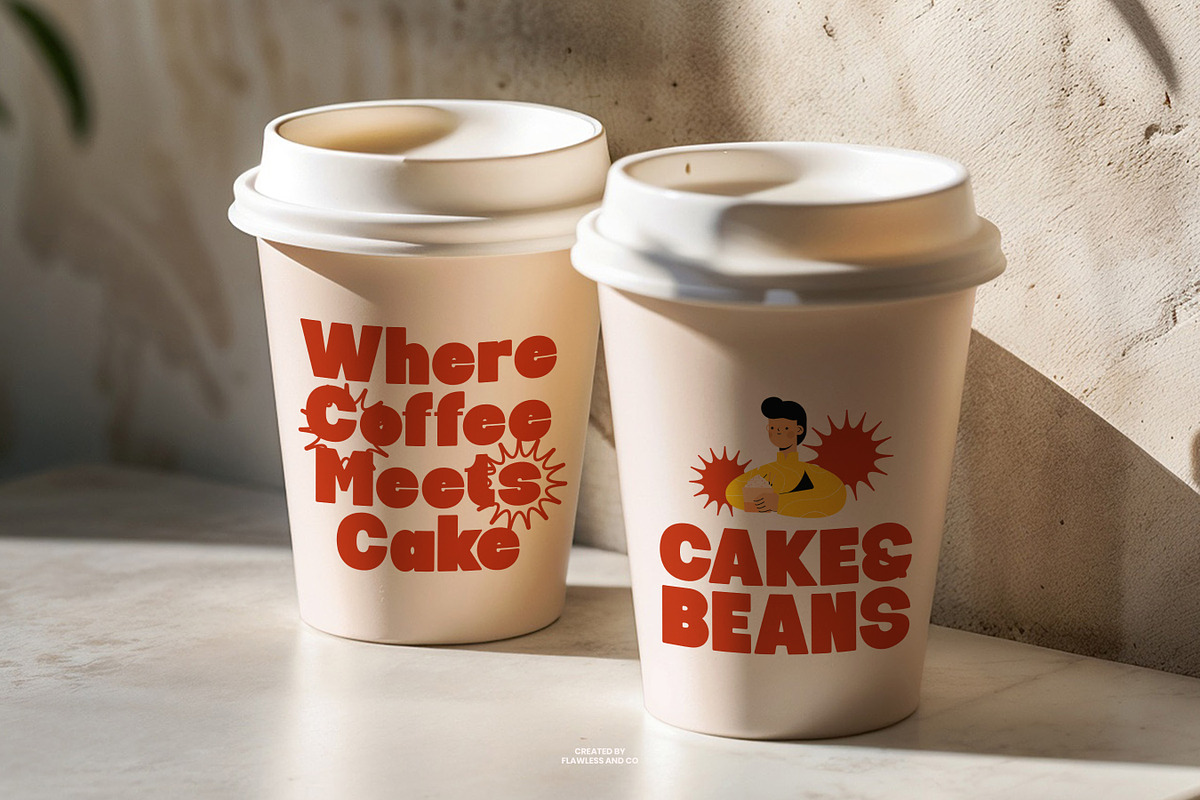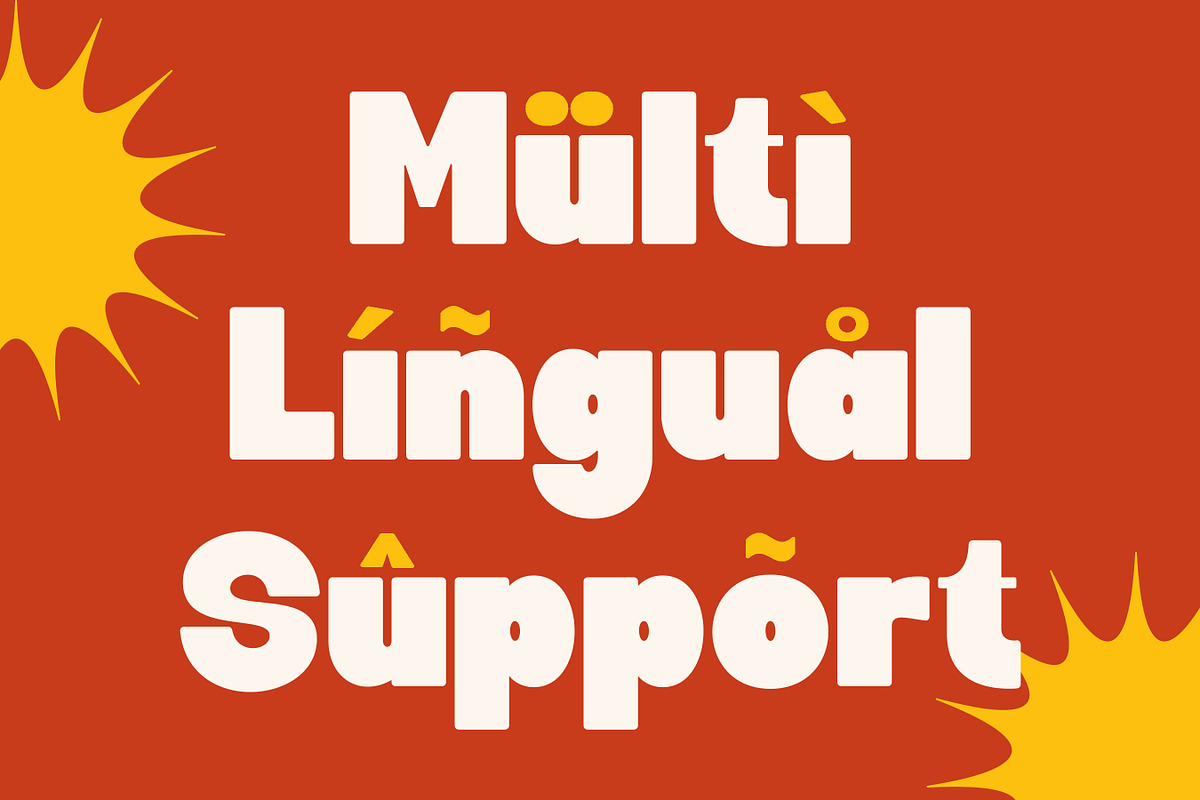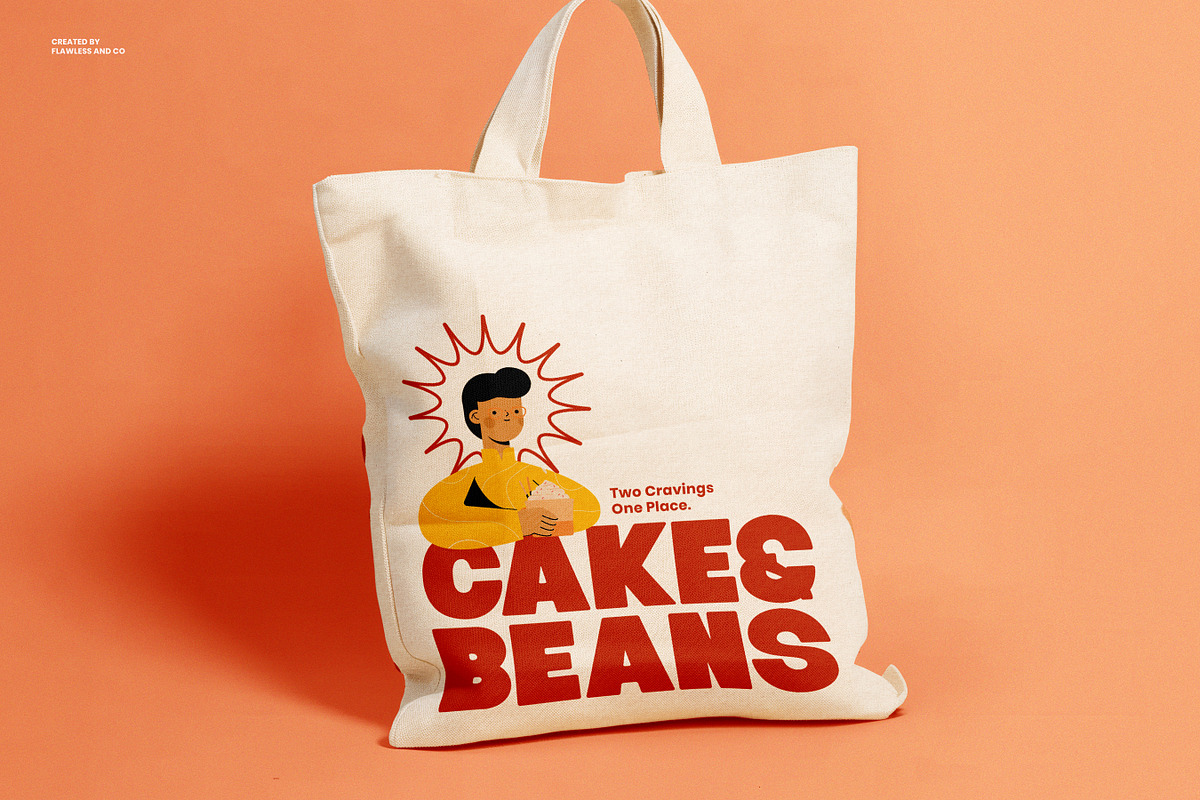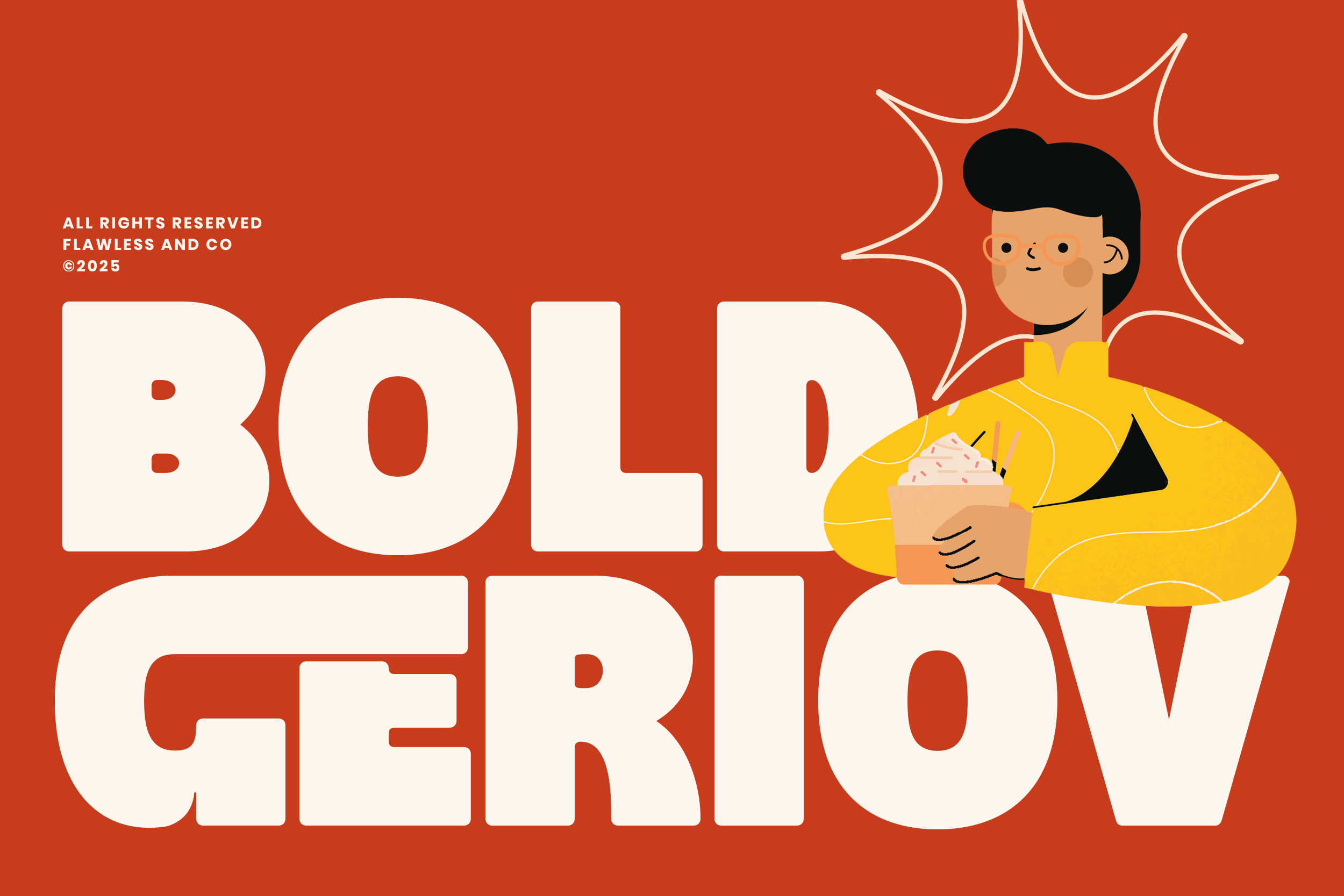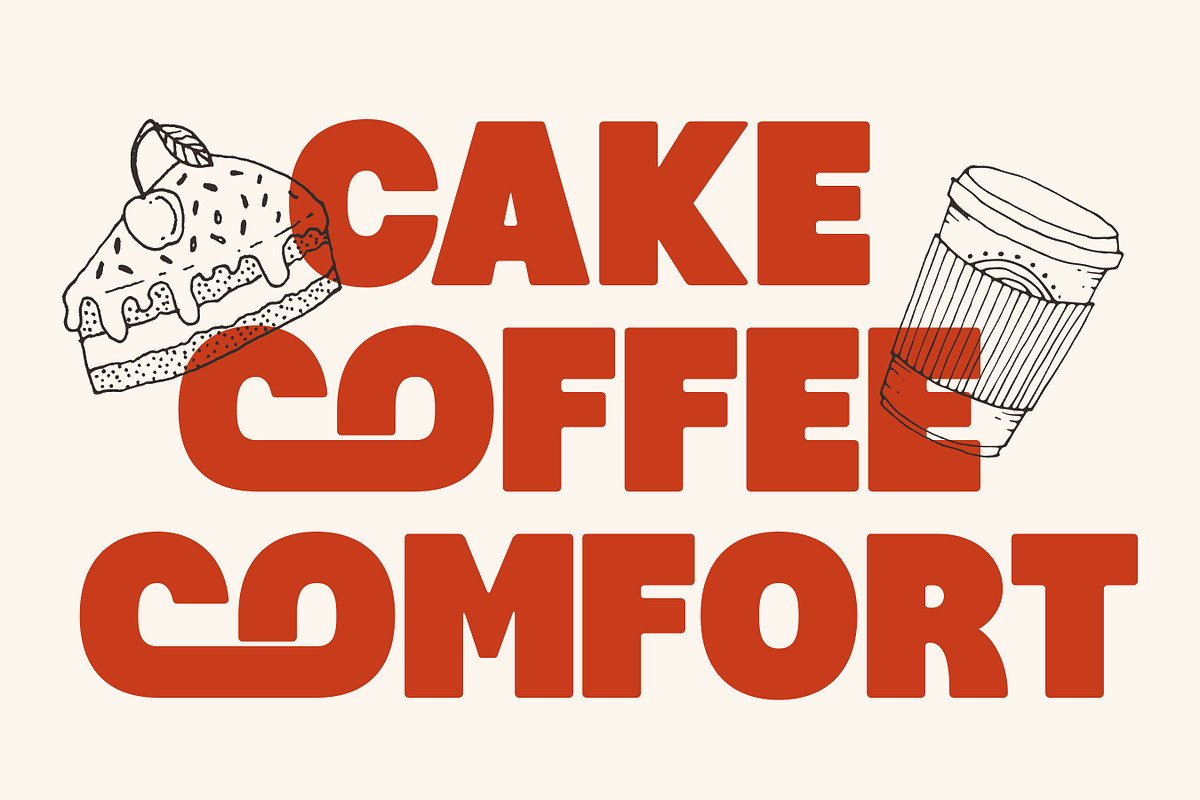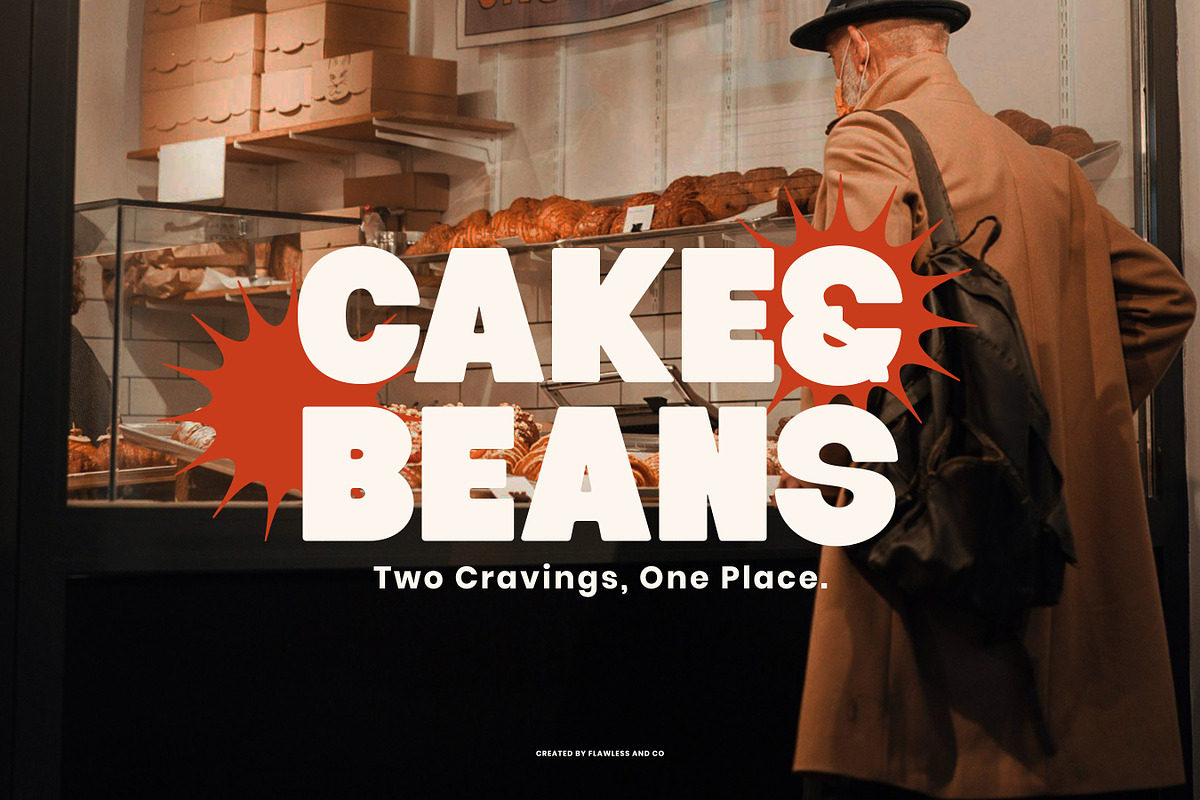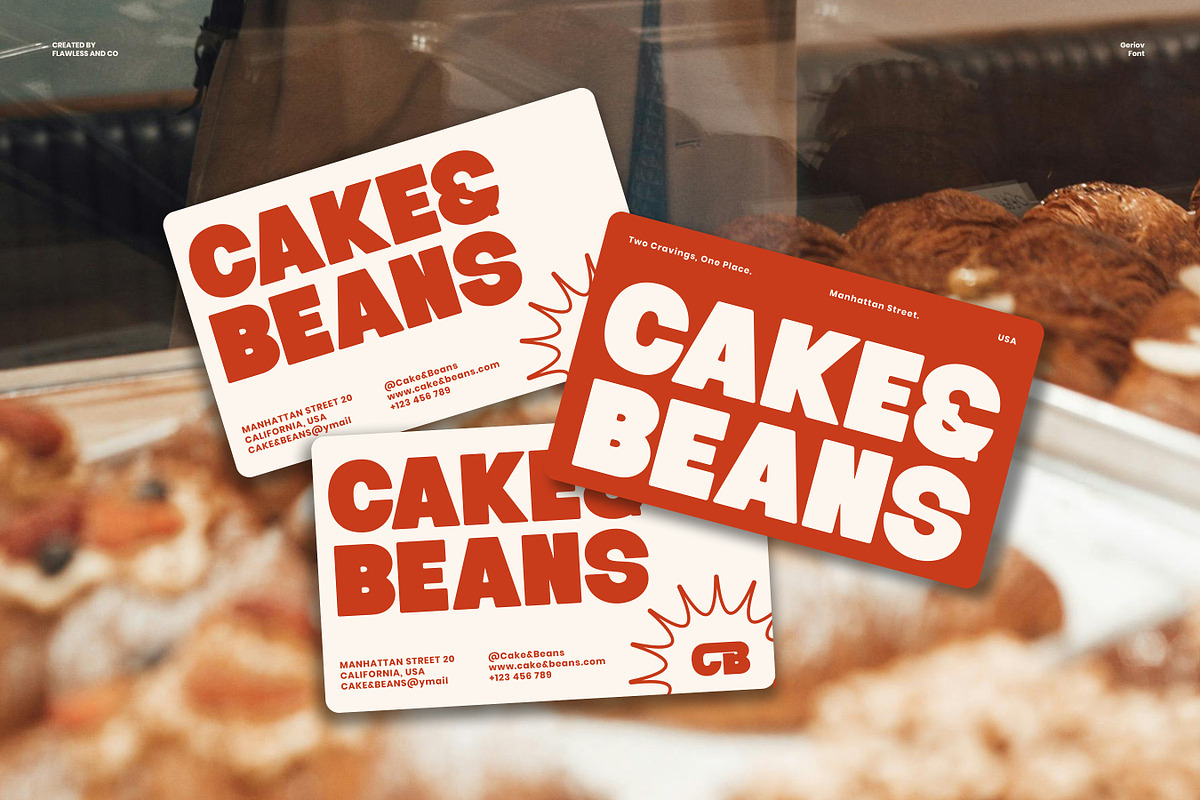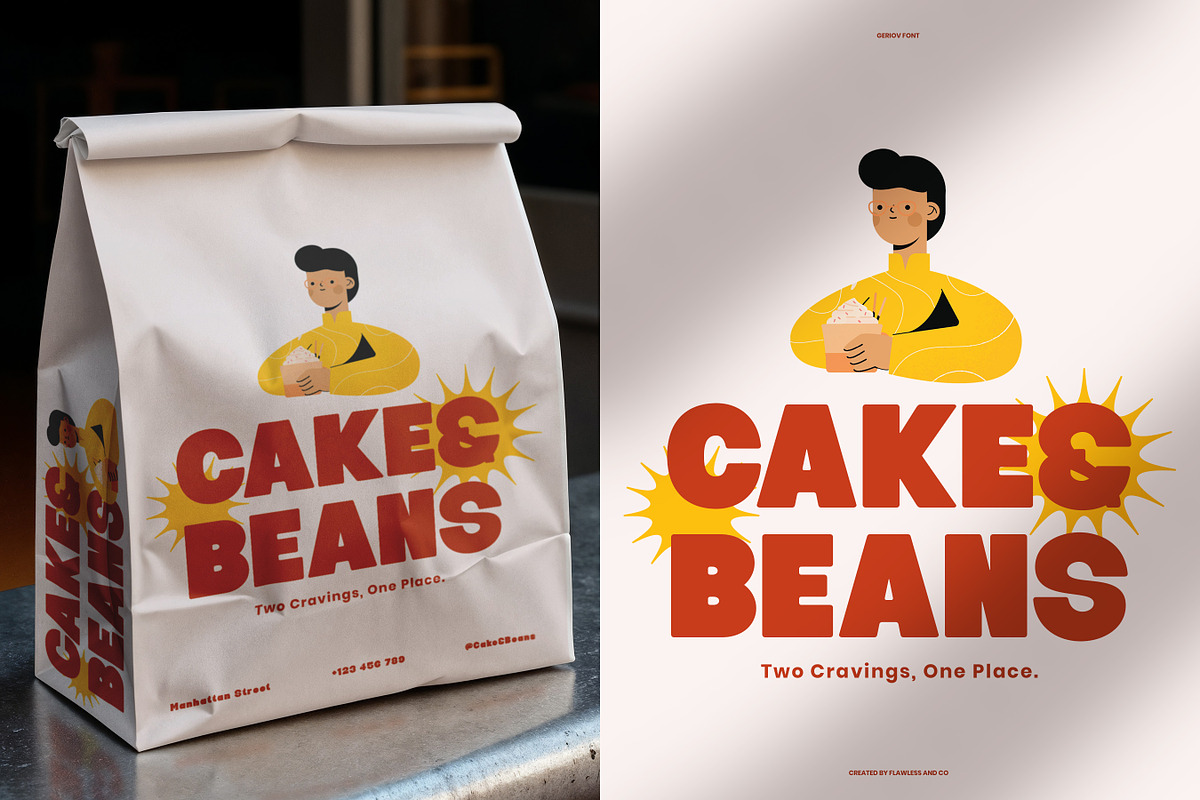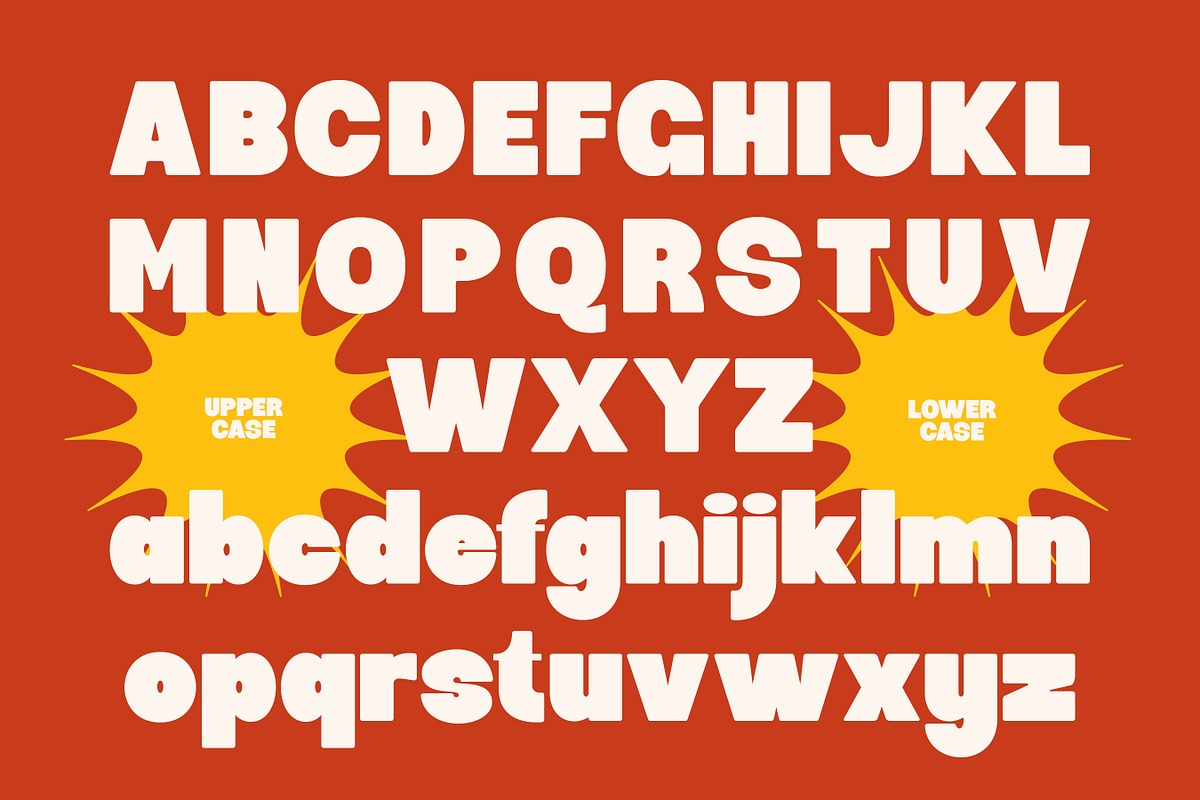
Bold Geriov - Bold Display Font
Bold Geriov is a bold display font designed to bring instant impact and character to your design. With its chunky shapes, smooth curves, and friendly quirky style, Bold Geriov delivers a fun yet strong visual presence—perfect for projects that need to feel bold, modern, and full of personality. Ideal for branding, packaging, posters, social media, merchandise, and any creative work that needs a standout headline font, Bold Geriov gives your design a fresh, expressive, and memorable look.
Who Should Use Bold Geriov
Bold Geriov is perfect for designers, brand creators, illustrators, and anyone who needs a bold display font with a fun and friendly personality. Whether you're crafting playful branding, eye-catching packaging, or expressive social media visuals, Bold Geriov gives your projects a strong and memorable look.
A Must-Have Font for Bold Geriov Creators and Designers
Bold Geriov is a must-have for designers who want their work to feel lively, bold, and instantly recognizable. Its chunky shapes and playful curves make every design stand out, helping you create branding, titles, and visuals that feel confident, creative, and full of personality.
Why Choose Bold Geriov for Brand and Logo Projects?
Bold Geriov brings strong character and friendly energy to every design. Its thick shapes and smooth curves create a bold visual presence that immediately grabs attention and feels approachable at the same time. Perfect for logos that need to look fun, modern, and memorable, Bold Geriov makes your branding stand out on packaging, signage, digital media, and more. It delivers clarity, charm, and confidence—all in one playful display style.
Suitable For
- Logo design
- Branding and packaging
- Children’s products
- Food & beverage labels
- Mascot and character-themed designs
- Illustrative titles
- Posters and advertising
- Social media graphics